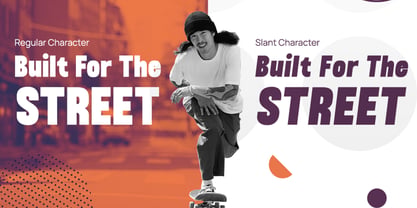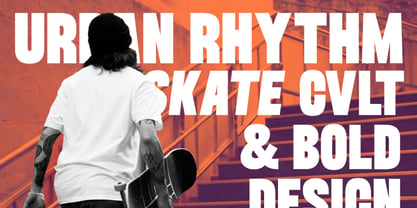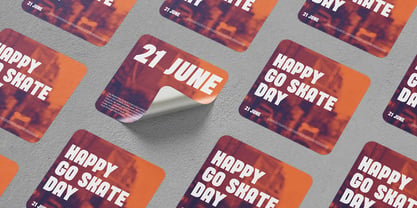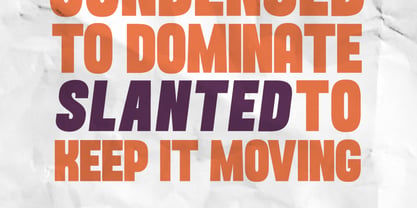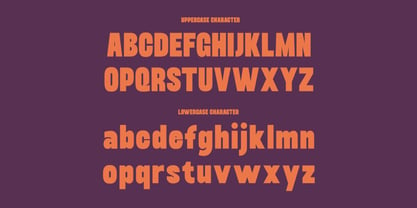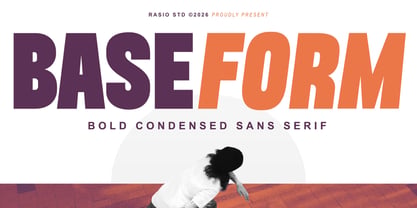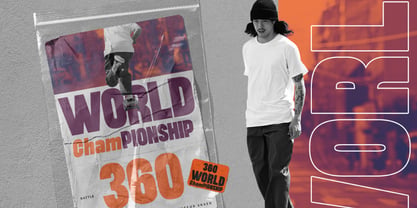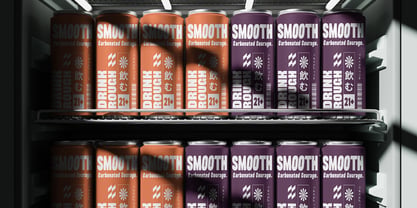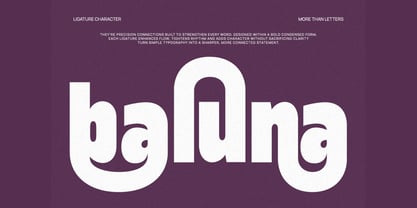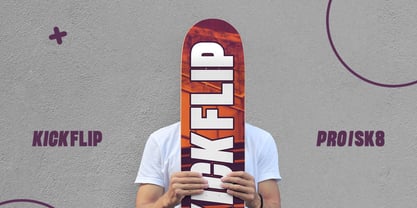
Baseform
by Rasio Studio
The Baseform Font Family was designed by Fajar Indra and published by Rasio Studio. Baseform contains 2 styles and family package options. More about this family
Baseform is a bold condensed sans serif display typeface built with strong vertical proportions, compact letterforms, and confident geometric structure. The design features tight spacing, heavy strokes, and distinctive ligatures that create a solid, impactful rhythm across headlines and large typography. Relevance and Use Cases is perfect for bold branding systems, streetwear labels, sports graphics, posters, album covers, packaging design, modern editorials, advertising headlines, social media campaigns, and any layout that needs compact structure with strong visual presence.